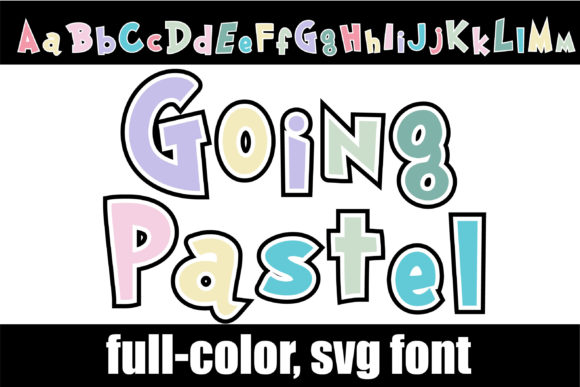
Dive into a world of colors and imagination with Going Pastel, a playful and captivating color font bursting with charm. Let your designs radiate joy and creativity with this vibrant font, perfect for capturing the essence of childhood and imagination. Crafted by Illustration Ink, Going Pastel is a full-color marvel that brings life to any children's activity or school project.
Picture your designs adorned with Going Pastel's whimsical, child-like lettering, each letter a burst of color and personality. Instantly elevate your invitations, cards, posters, and social media posts with this delightful font. Its chunky, friendly letters dance across the page, inviting readers to embark on a journey of fun and creativity.
But Going Pastel is more than just a pretty face. It's a font that embodies playfulness and authenticity, perfectly capturing the spirit of childhood. Its pastel hues evoke a sense of nostalgia and innocence, while its unique style adds a touch of whimsy and charm.
With Going Pastel, you'll bring a smile to the faces of your readers, whether they're young or young at heart. It's the ideal font for creating eye-catching designs that resonate with children and adults alike.